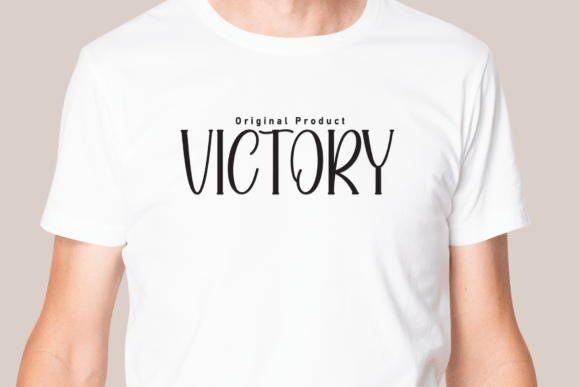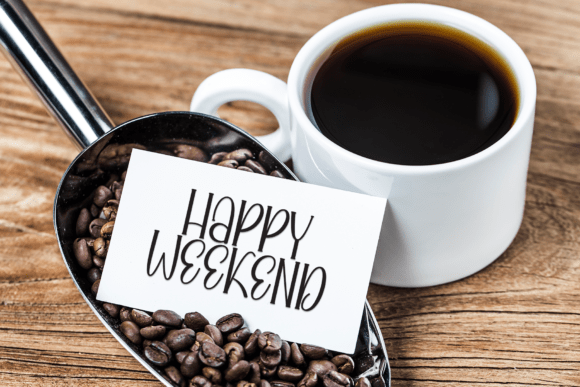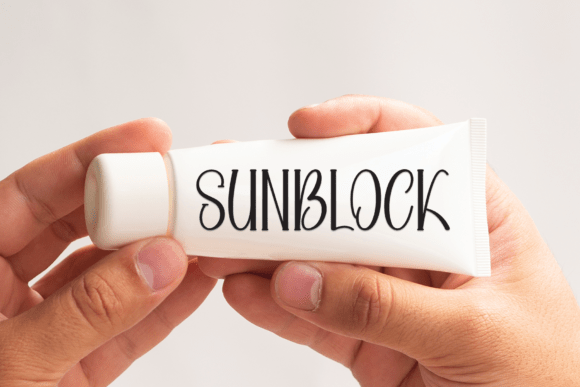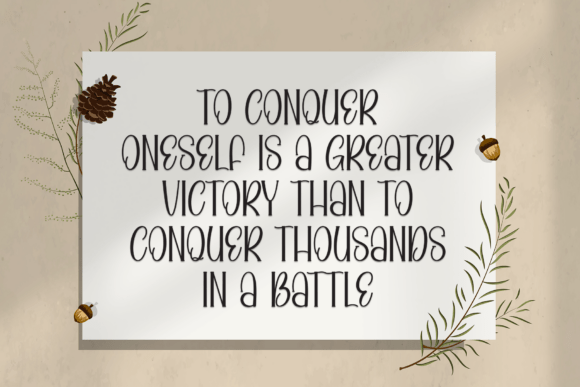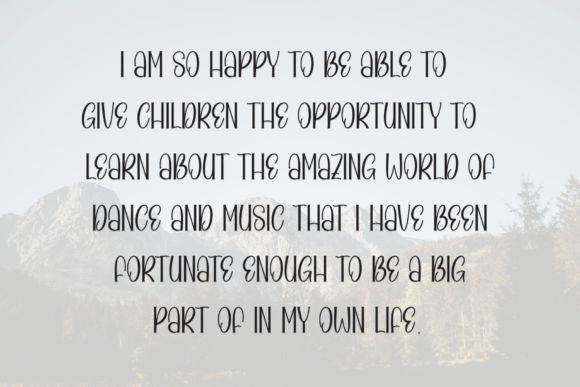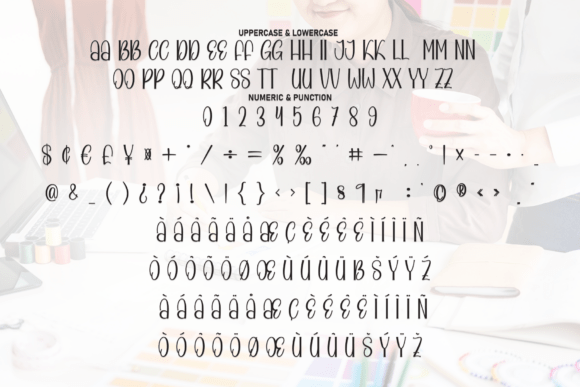
The Designer Font: A Creative Game-Changer for Your Projects
Have you ever been in the middle of a design project, and suddenly, you’re stuck on finding the perfect font? I recall a particularly frustrating experience while working on a fashion brand’s logo. The client wanted something modern, yet handcrafted; stylish, yet distinctive. After hours of searching, I stumbled upon the Designer font, and it was love at first sight! In this article, we’ll dive into what makes this font special, its uses, and how to make the most of it in your designs.
First Impressions: What I Love About Designer Font
The Designer font is a creative handmade display font that boasts tall, stylish letters with an artistic flair. Here are some of the aspects that I adore:
- ✨ Unique Letterforms: The font’s letterforms combine a modern look with a handcrafted touch, making it perfect for projects that demand originality.
- ✅ Versatility: It’s ideal for branding, fashion projects, posters, and editorial design, offering a wide range of applications.
- 💡 Personality: The font exudes personality, ensuring your designs stand out in a crowd.
A Few Quirks to Consider
No font is perfect, and Designer has a few minor limitations:
- 🤔 Limited Use in Body Text: Due to its stylized nature, Designer might not be the best choice for lengthy body text. It’s better suited for headlines and titles.
- ⚠️ Requires Attention to Kerning: As with many display fonts, you might need to adjust kerning for optimal readability, especially in larger blocks of text.
The Story Behind Designer Font
Designer font was created with the intention of bridging the gap between modern design and handcrafted elegance. The designer aimed to craft a font that would be both stylish and distinctive, perfect for creative projects. The result is a font that exudes personality and versatility.
| What makes Designer font unique? | Designer font’s unique letterforms combine a modern look with a handcrafted touch, making it perfect for projects that demand originality. |
| Is Designer font suitable for body text? | While it’s possible to use Designer font for body text, it’s better suited for headlines and titles due to its stylized nature. |
In conclusion, Designer font is a creative game-changer for designers, crafters, and creative hobbyists. Its unique blend of modernity and handcrafted elegance makes it perfect for a wide range of projects. By understanding its strengths and limitations, you can unlock its full potential and add a touch of originality to your designs.